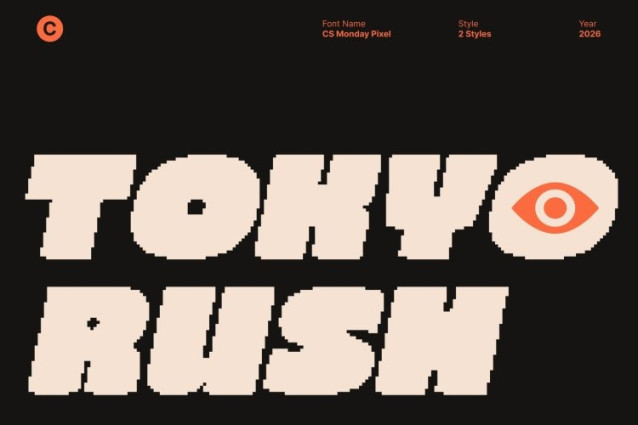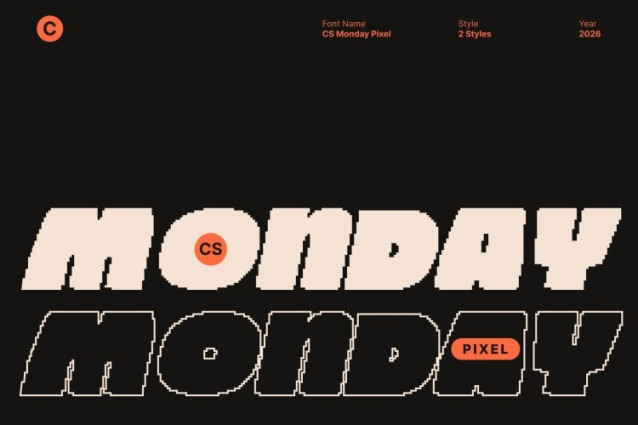
CS Monday Pixel Font
CS Monday Pixel Font This is a modern sans serif font defined by bold weight, clean construction, and pixel-inspired structure. Its strong, blocky letterforms deliver instant clarity and impact, while the pixel treatment introduces a digital edge reminiscent of classic screen typography and old-school technology. The result is a font that feels solid, modern, and unmistakably eye-catching.
Funky Personality Meets Digital Attitude
What truly sets apart is its funky character infused into a structured pixel framework. While confident and professional at its core, playful proportions and lively details add personality and charm. This balance between order and creativity creates a bold display font that feels expressive, energetic, and full of modern digital spirit.
Perfect for Modern, Retro, and Digital Projects
Designed for logos, posters, branding, packaging, and digital visuals, this font thrives in projects that demand visibility and character. Its bold pixel form makes it especially effective for tech branding, retro-inspired designs, gaming visuals, digital posters, and creative social media content.
Confident Impact with Retro-Tech Charm
This font combines strength, modern design, and funky flair into a single powerful typeface. Its bold strokes and pixel aesthetic make it ideal for creatives who want typography that feels confident, memorable, and visually expressive. Perfect for designs that want to stand out with modern attitude and nostalgic digital charm.